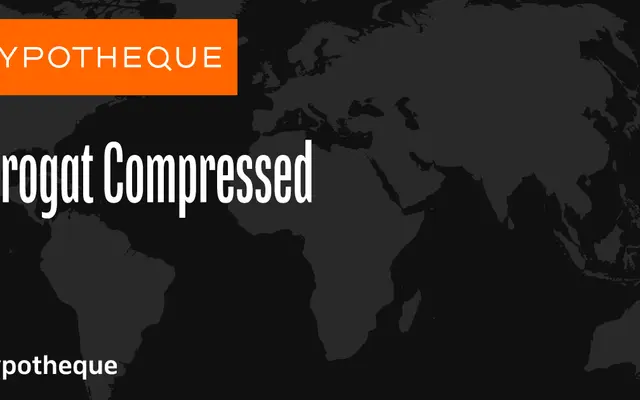
Surogat Compressed
A compressed grotesque sans from Typotheque, part of a three-width family spanning eight weights with italics throughout.
Surogat Compressed is the narrowest cut in the Surogat family, which also includes Surogat Condensed and the standard-width Surogat. Eight weights from Thin to Black are available across all three widths, each accompanied by italic styles. The compressed width makes it well suited to tight editorial settings, posters and headlines where horizontal space is at a premium.
Surogat Compressed is a narrow grotesque sans-serif forming part of a wider family that includes upright and condensed widths across an extensive weight range, consistent with the grotesque tradition.